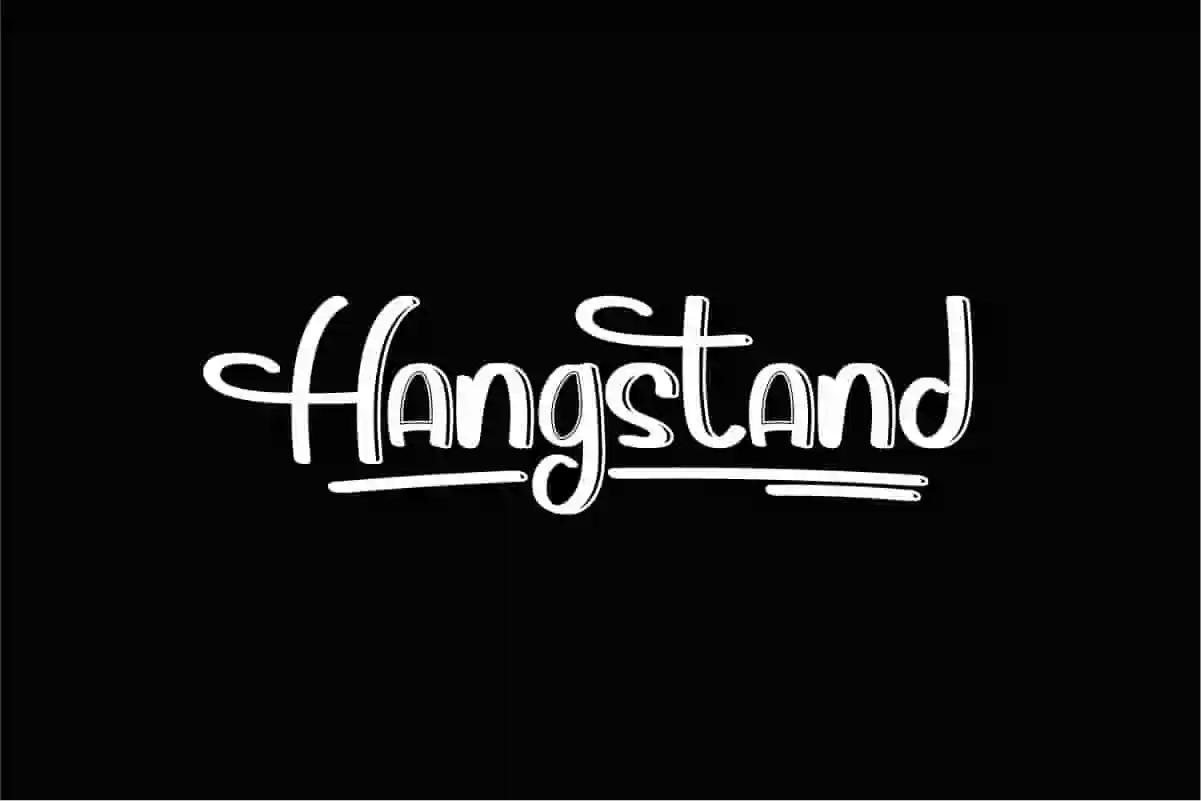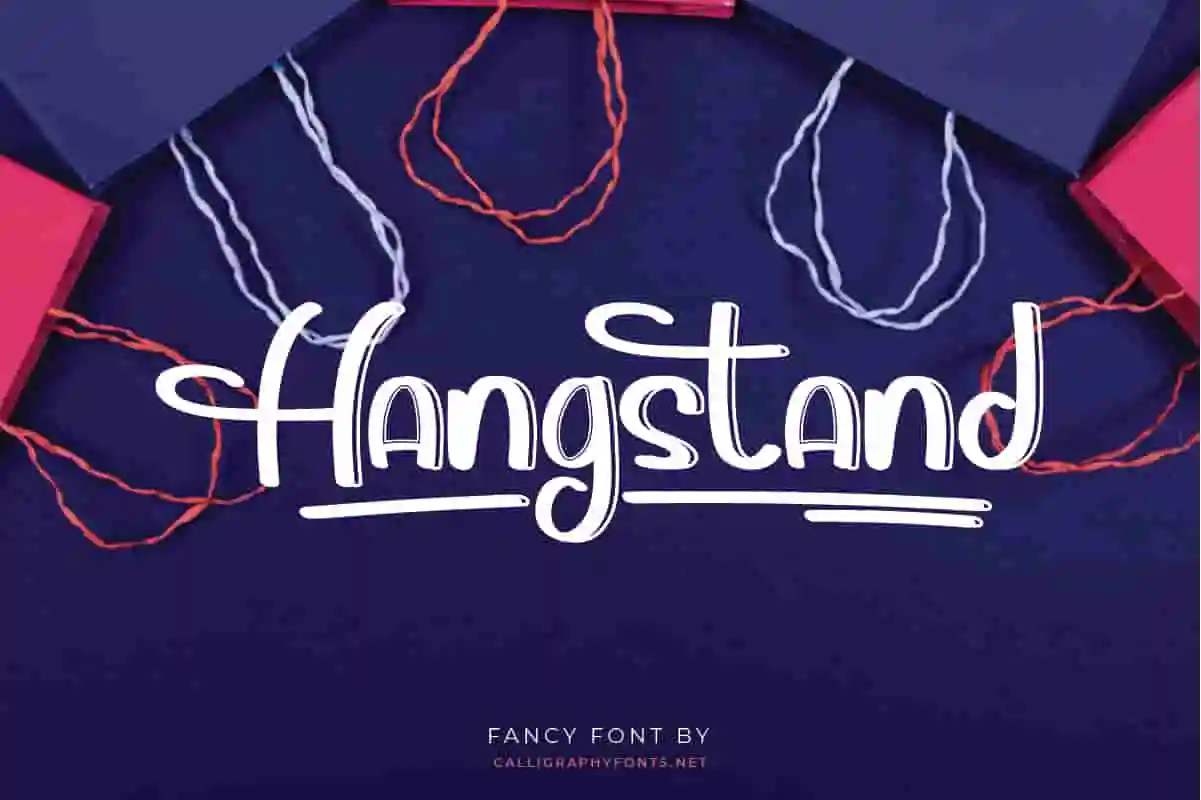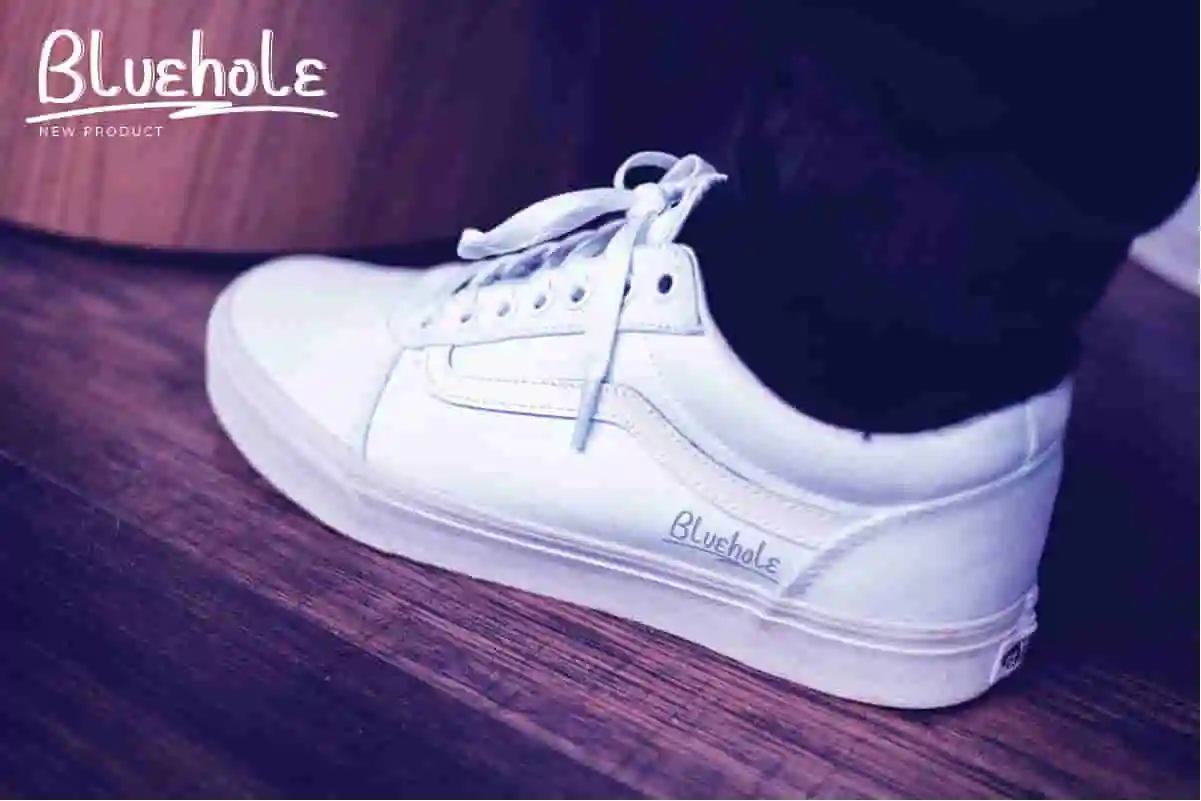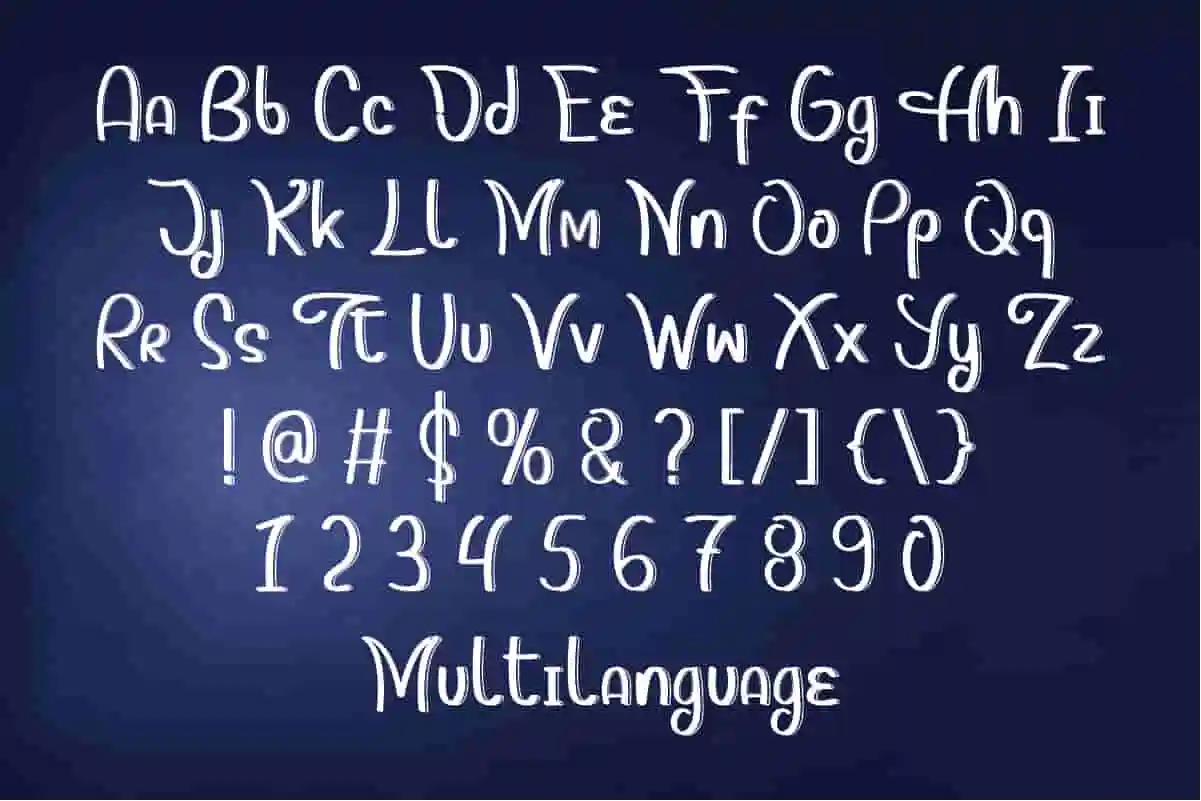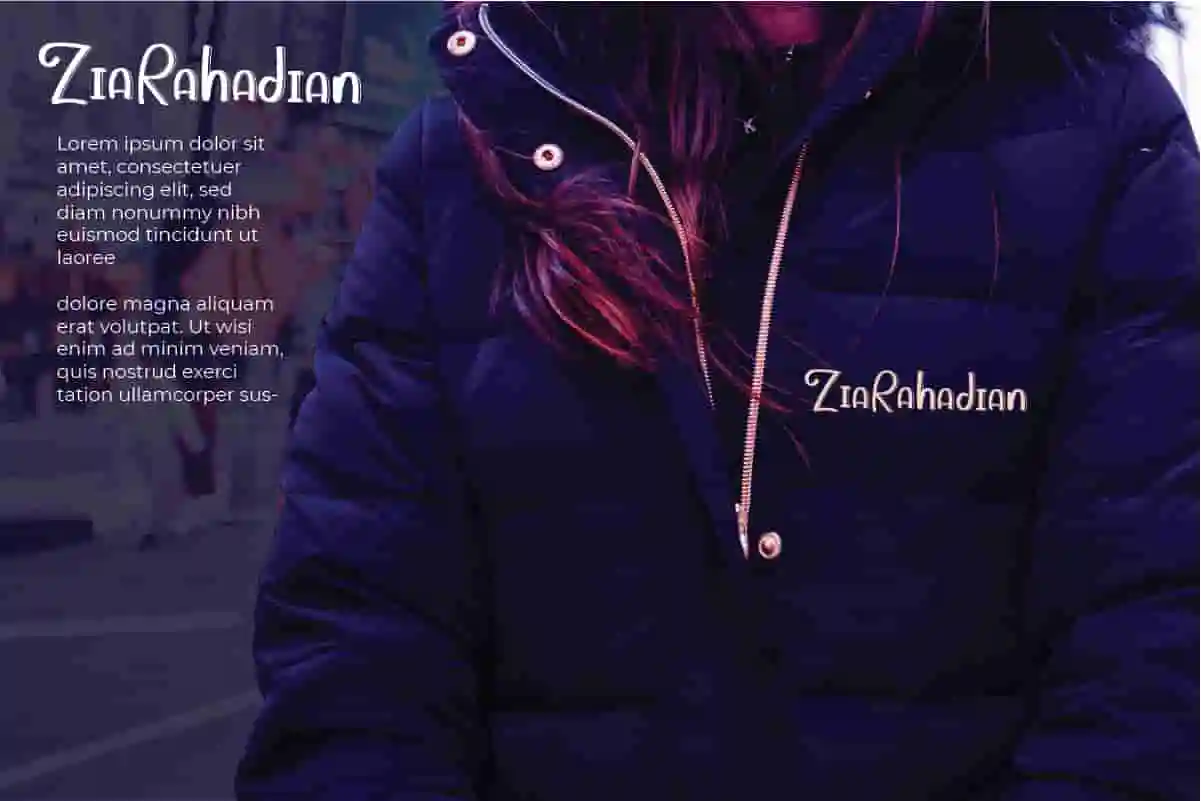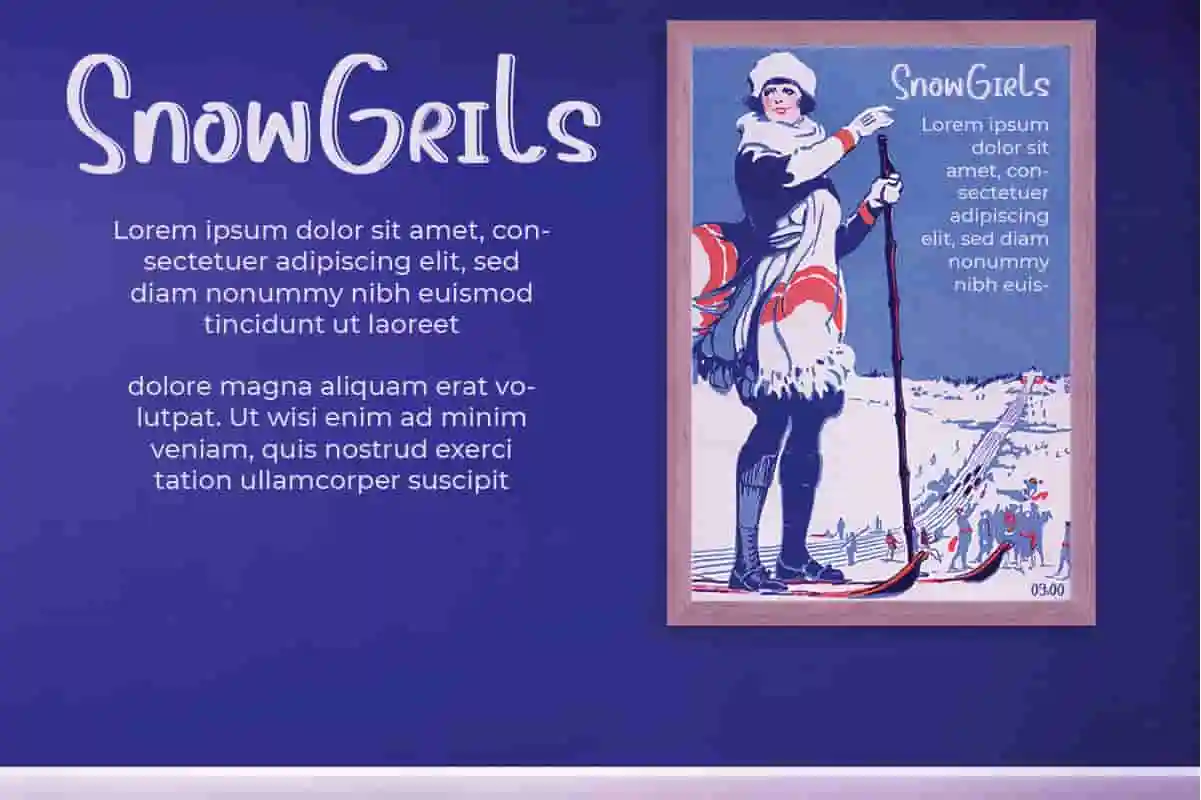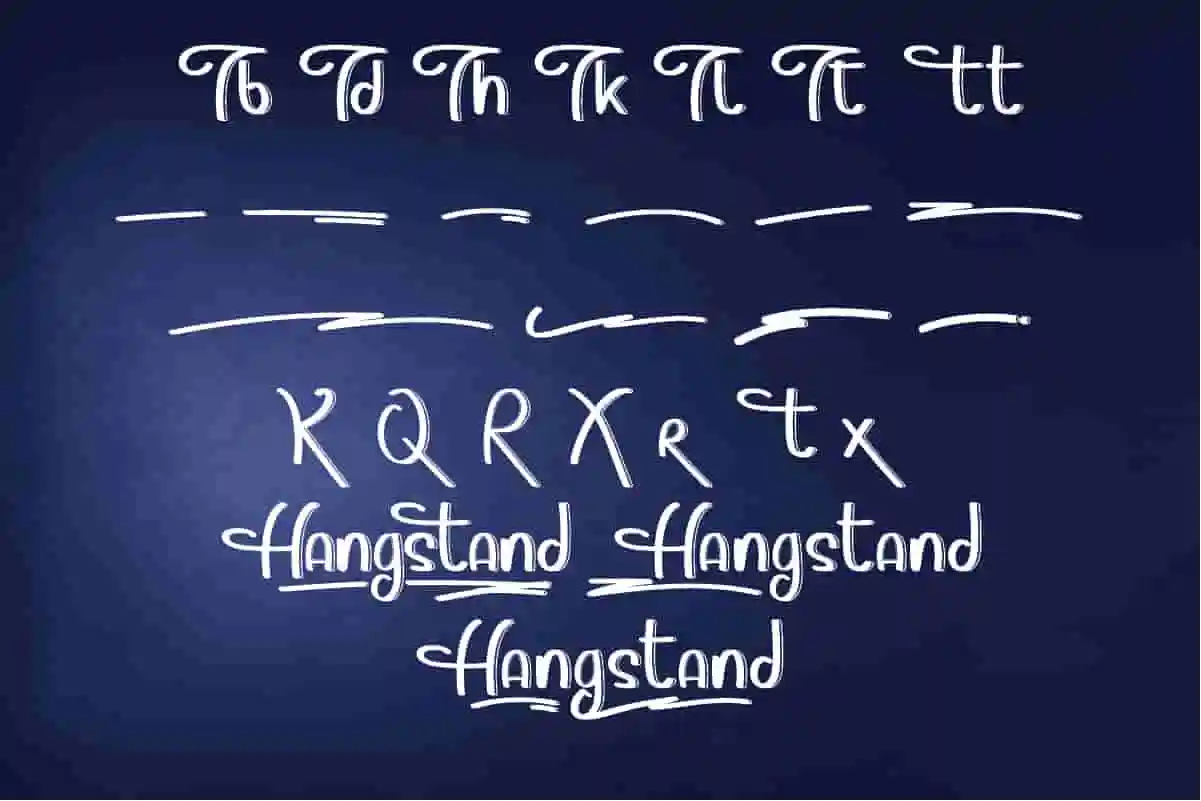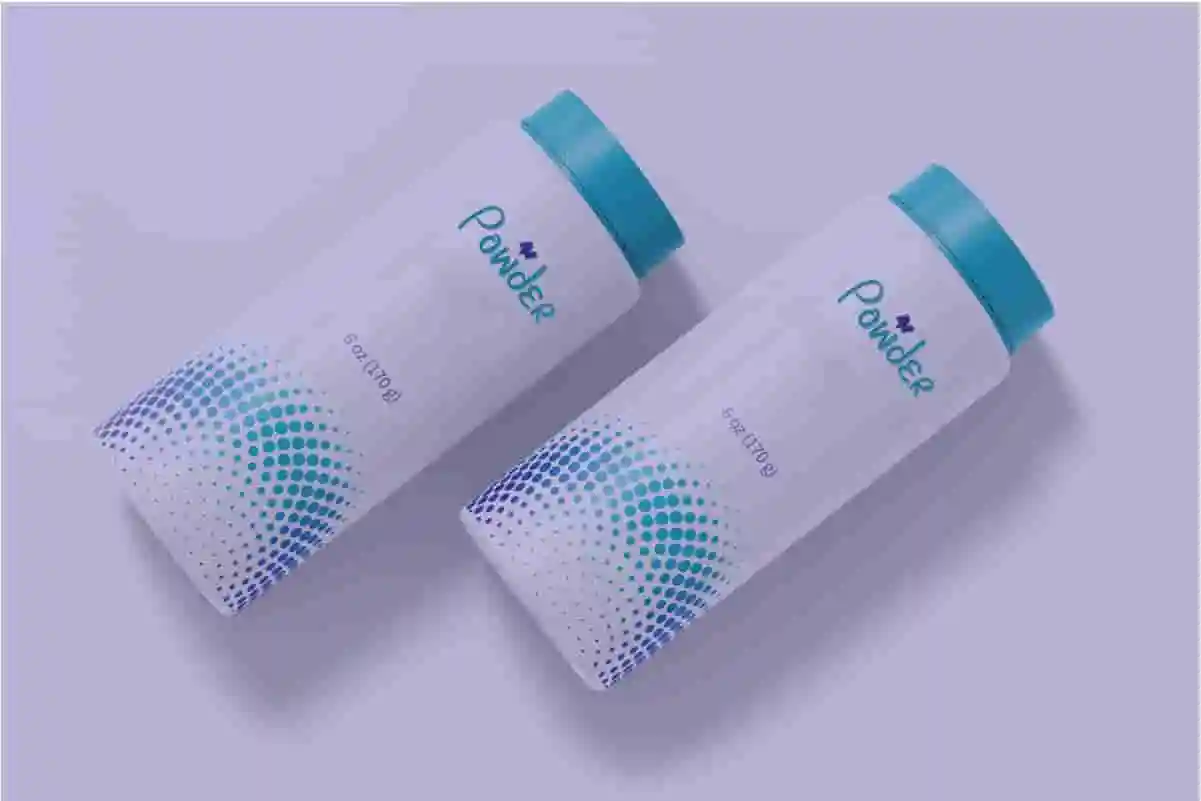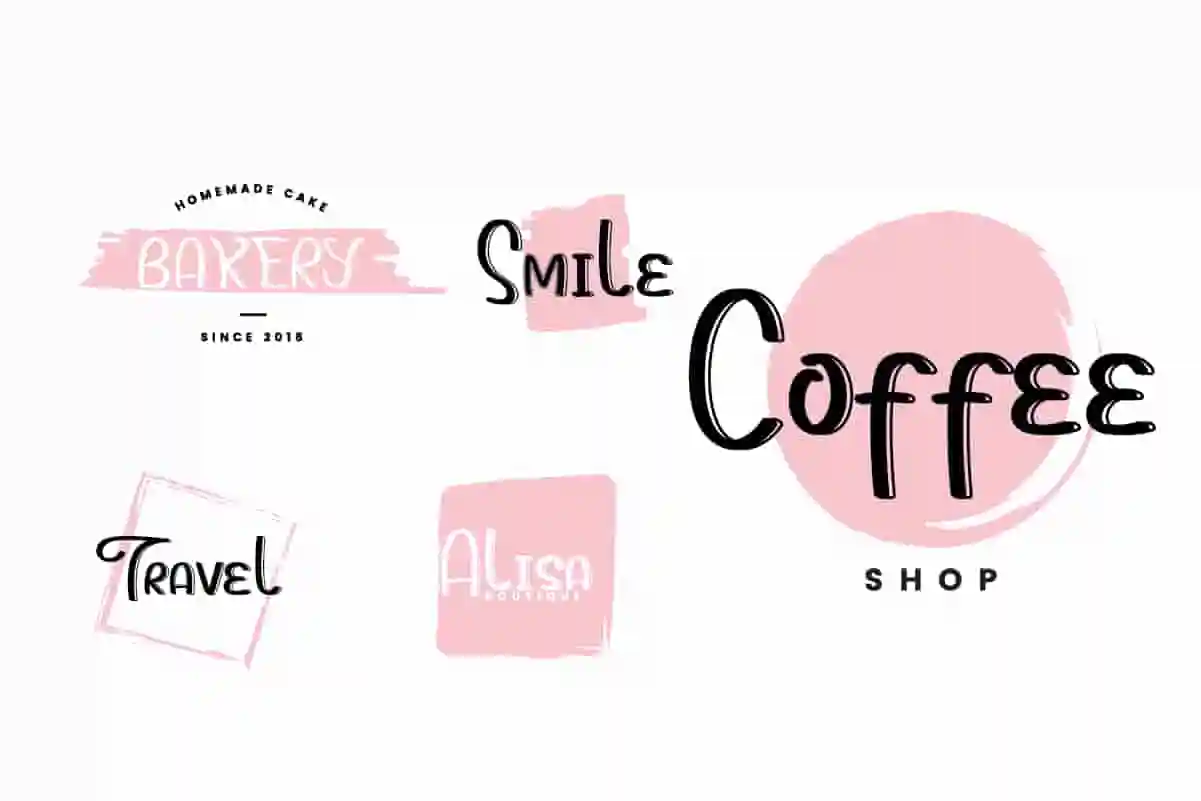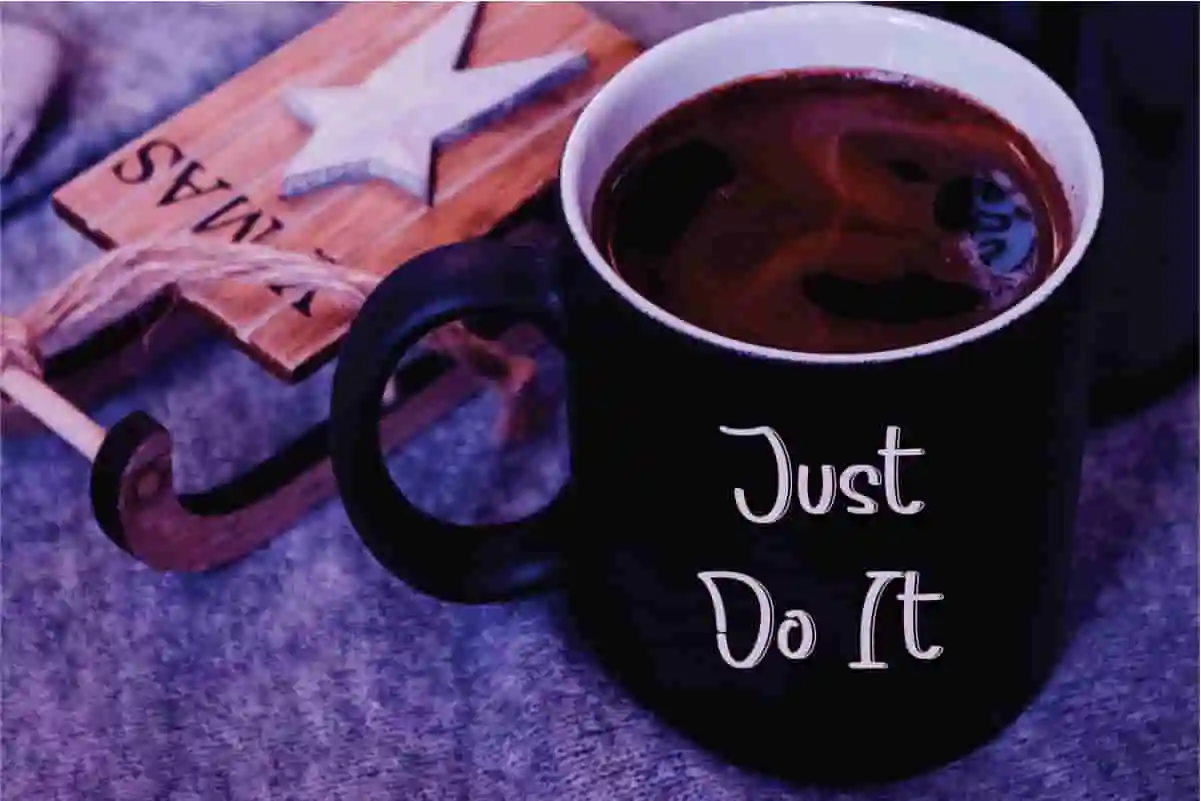
Hangstand Display Font
Hangstand Font is a handwriting display font by CalligraphyFonts.net. It has great characters that will be awesome for clothing, brands, events, headlines, poster, invitation, flyer etc
Hangstand Font is a unique Handwriting display font by calligraphyfonts.net. It can be used for many purpose from Fun things to Brandings. The Hangstand Font will be awesome for clothing, events, cosmetic, beauty, spa, brands, packaging, invitation, games. etc
Introducing Hangstand Display Font, a striking and versatile typeface crafted to give your designs a modern, confident, and attention-grabbing look. With its bold lines, clean shapes, and unique letterforms, Hangstand is perfect for designers, brands, and creatives who want to make a strong visual statement. Whether you’re creating logos, posters, headlines, or social media graphics, this font delivers impact and style in every use.
With its uppercase-focused design, Hangstand offers a commanding presence that stands out from the crowd. It’s versatile enough to adapt to various design themes — from sleek corporate branding to edgy creative projects. Pair it with subtle sans-serif or elegant script fonts to create striking typography combinations that captivate audiences.